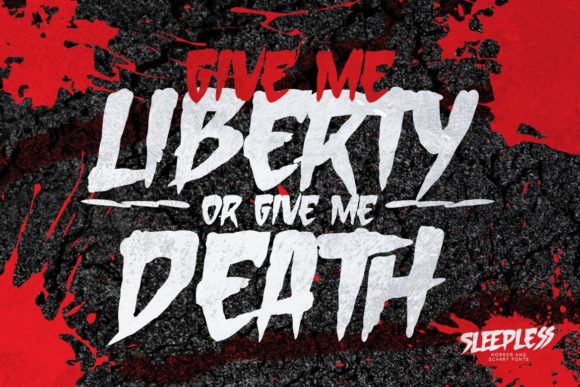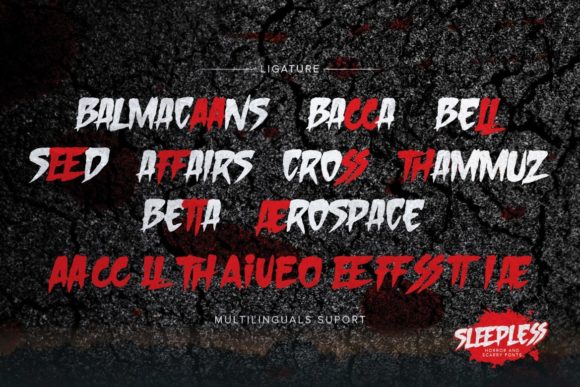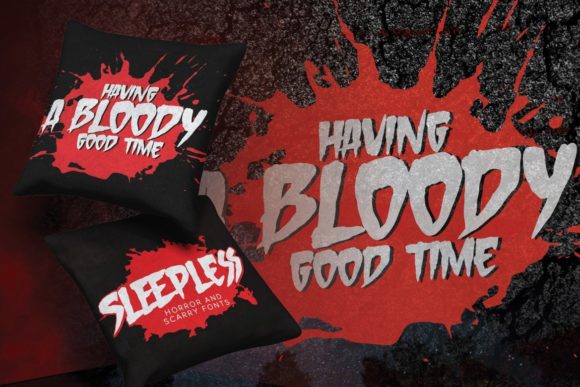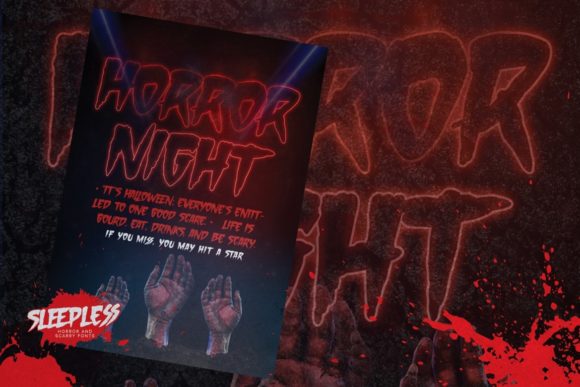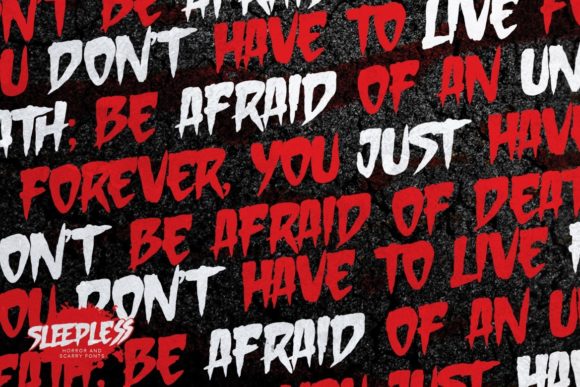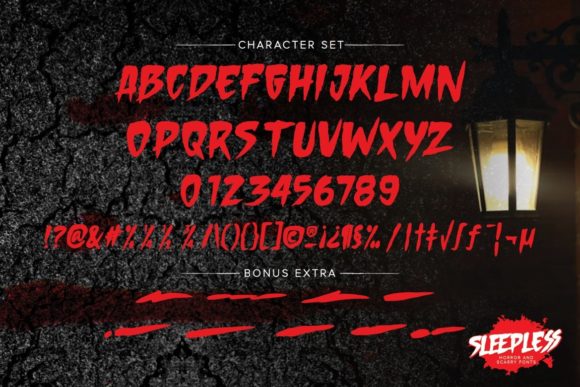
Introduction to Sleepless Font
Sleepless is a horror-styled display font that has a brushed, street art vibe.
This font is suitable for designs such as t-shirts, sportswear, logos, advertisements, clothing, and more .